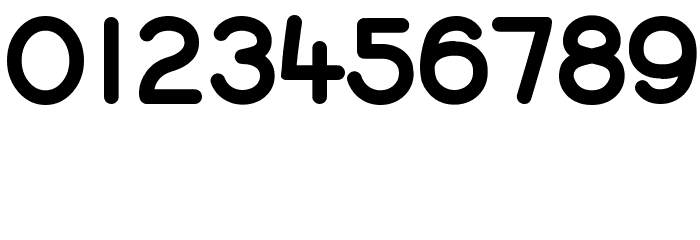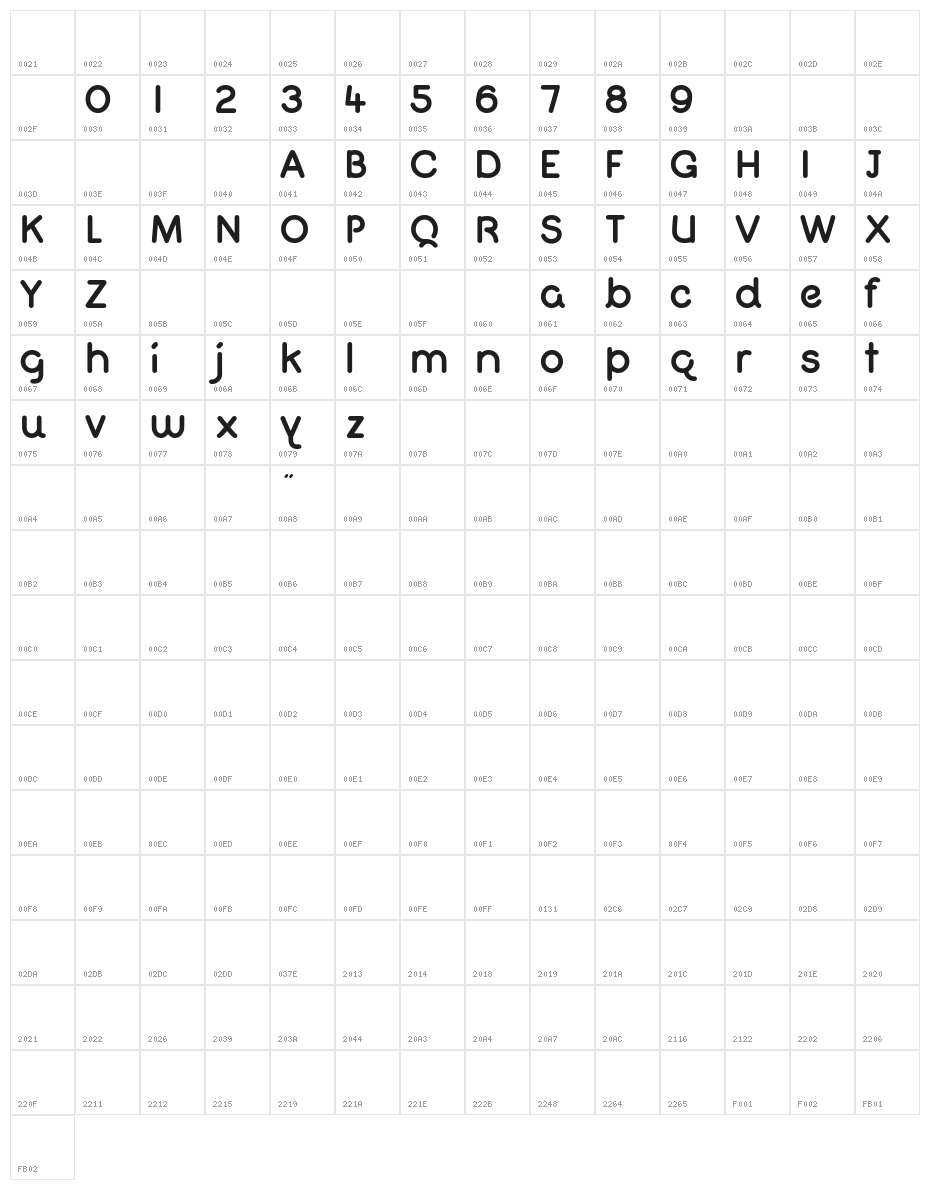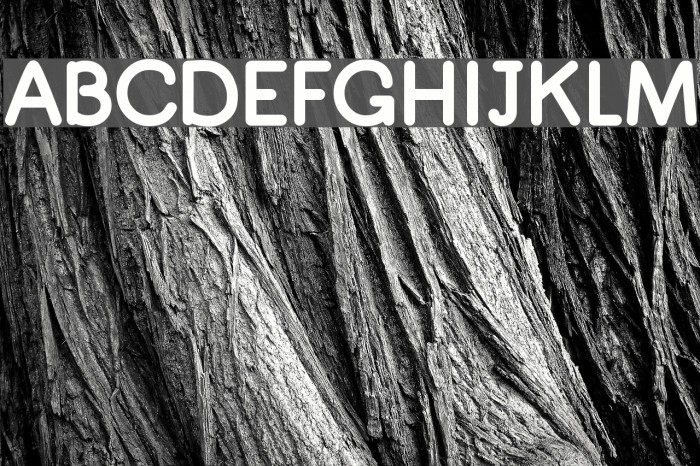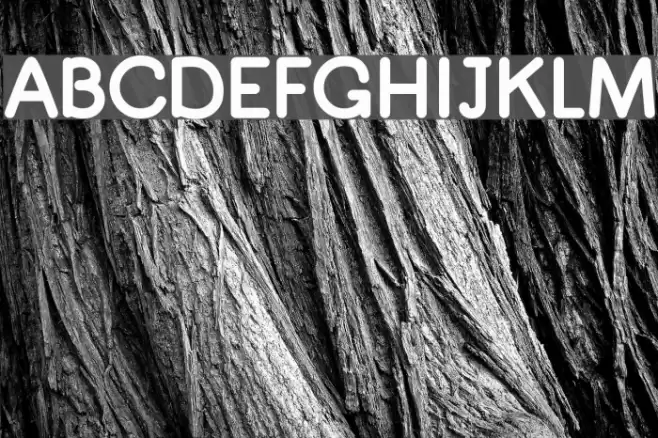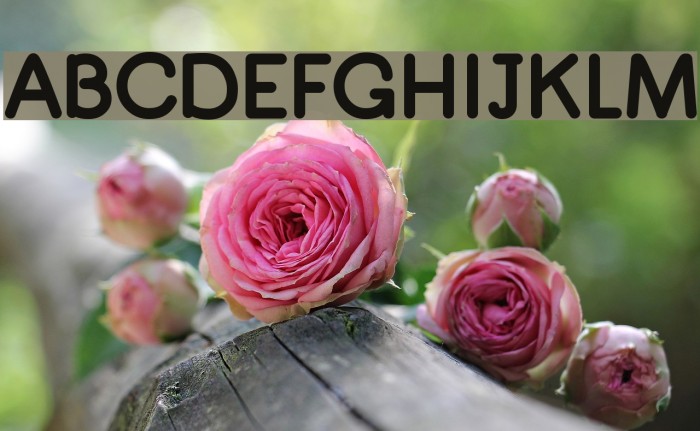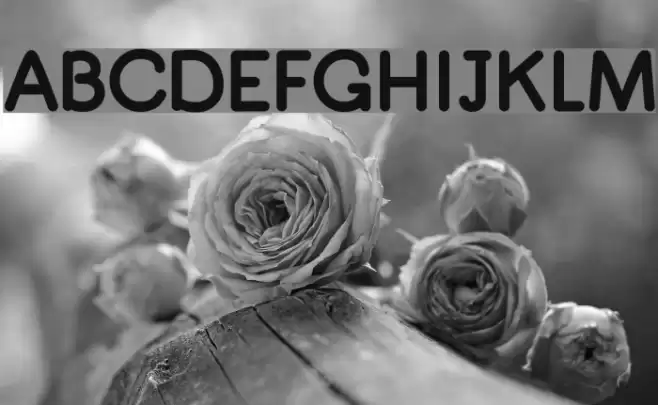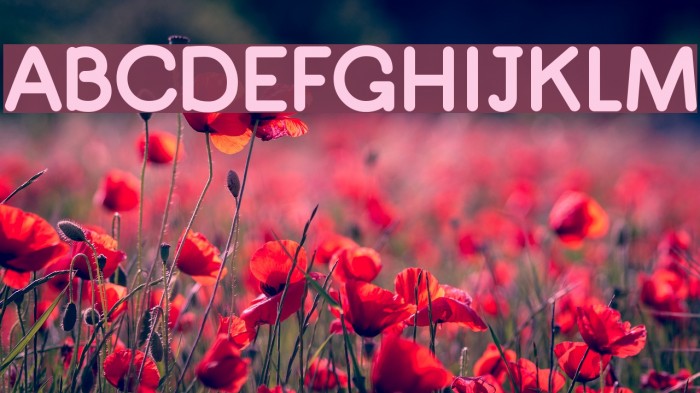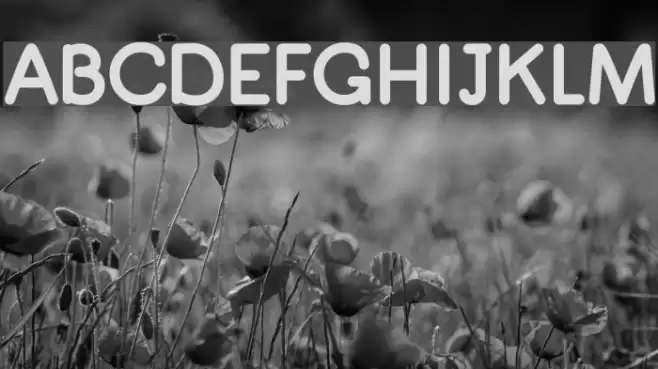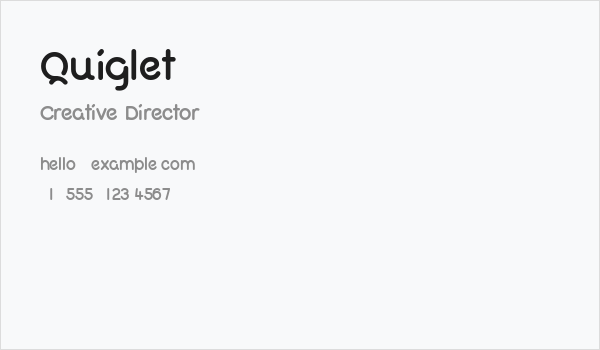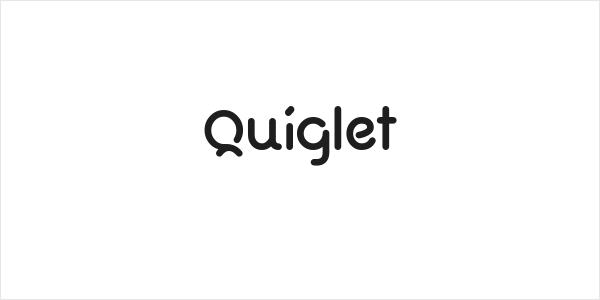
Quiglet Font
Quiglet Description
This font features a playful and rounded design, characterized by its smooth curves and friendly appearance. The letters are bold and have a consistent stroke width, giving them a uniform look. The rounded edges and lack of sharp angles contribute to its approachable and casual style. The font maintains a modern aesthetic, making it suitable for a variety of creative projects. Its readability is enhanced by the clear distinction between each character, while the uniformity in height and width ensures a balanced and cohesive appearance across all text. The numerals and special characters are designed to match the overall style, maintaining the same rounded and bold characteristics.
| Proposed Projects | Ideal for children's books, playful branding, casual invitations, and creative advertising. |